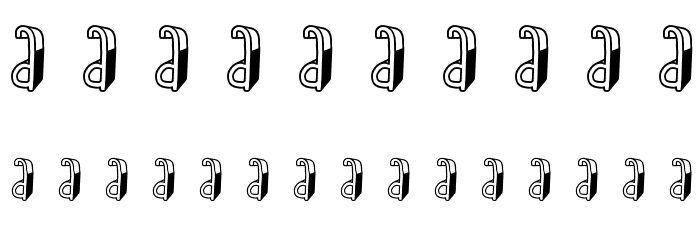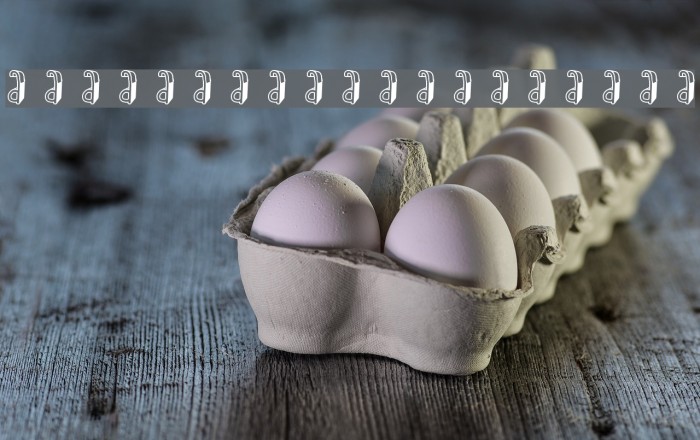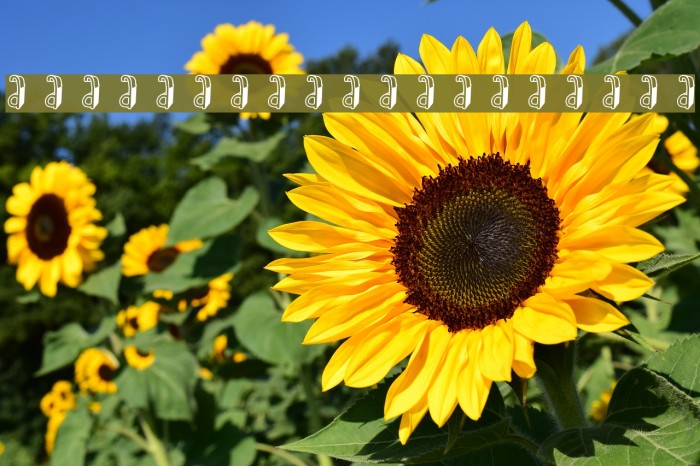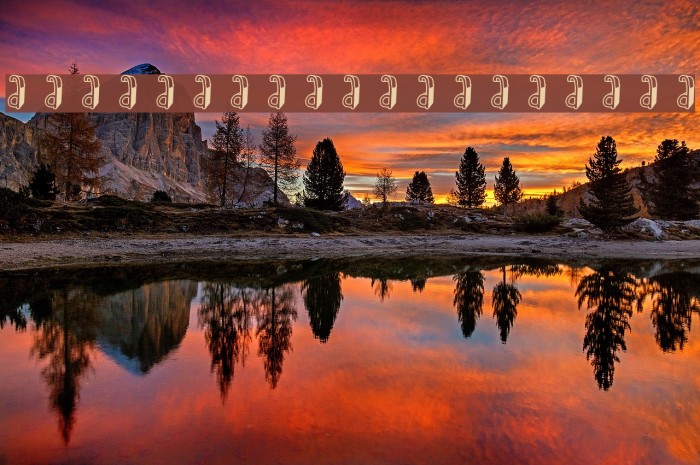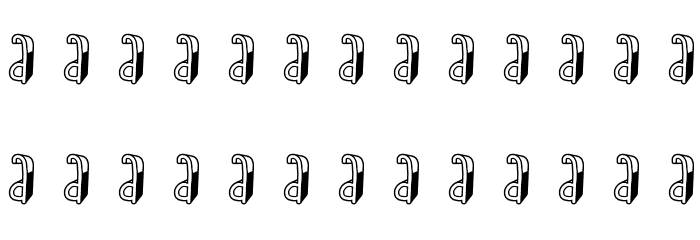
The-Super-Ryal-2015 Font
This font features a unique 3D effect with a bold outline and shadow, giving it a striking and modern appearance. The characters are uniformly designed with a consistent thickness, creating a cohesive look across all letters and numbers. The font's playful yet structured style makes it stand out, with each character maintaining a clear and distinct form. The shadow effect adds depth, making it suitable for eye-catching designs. The overall design is clean, with a slight geometric influence, making it versatile for various creative projects.
A bold, 3D-effect font with a modern and playful style.
• Proposed Projects: Ideal for posters, logos, headlines, and any design requiring a bold statement.
• Category: Decorative/Display
• Overall Style: Modern
• Use Case: Headlines, Logos